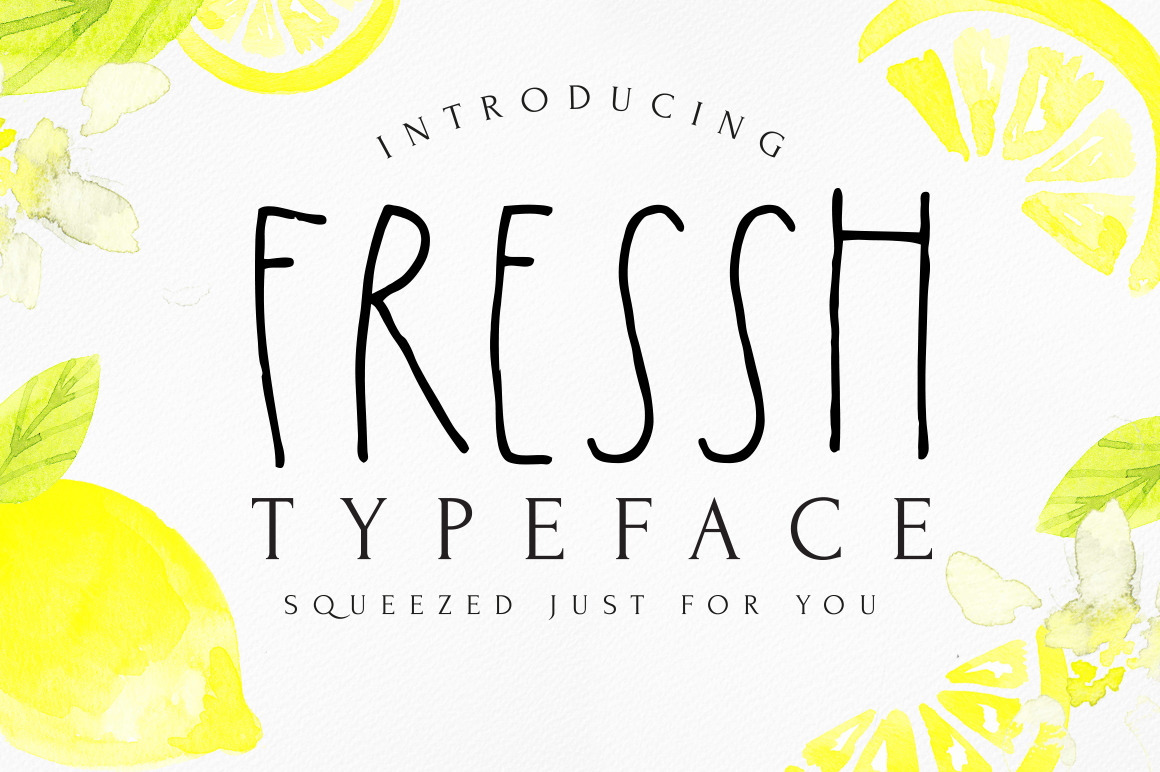
FRESSH typeface
Meet FRESSH, the clean, refreshing hand-drawn typeface! Like a cold glass of lemonade, FRESSH is home-made with love, while being crisp and tangy :) You'll love it! Pair it with loopy scripts, or modern serif typefaces to create different styles!